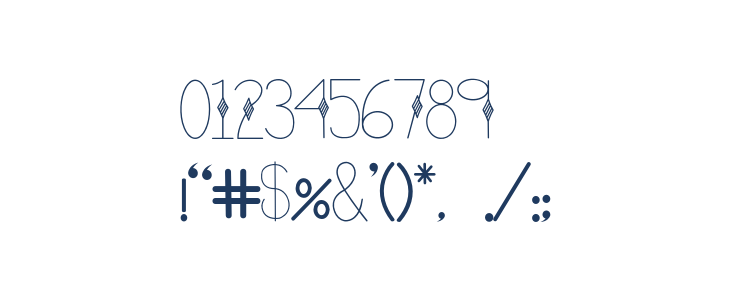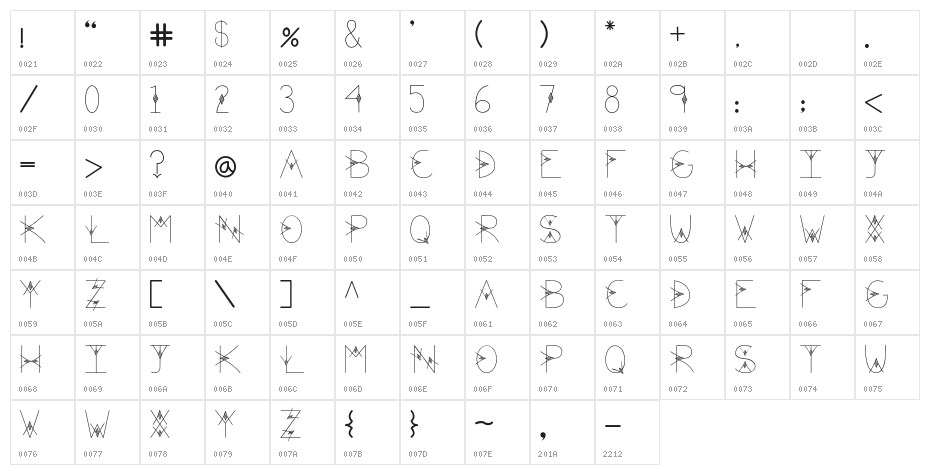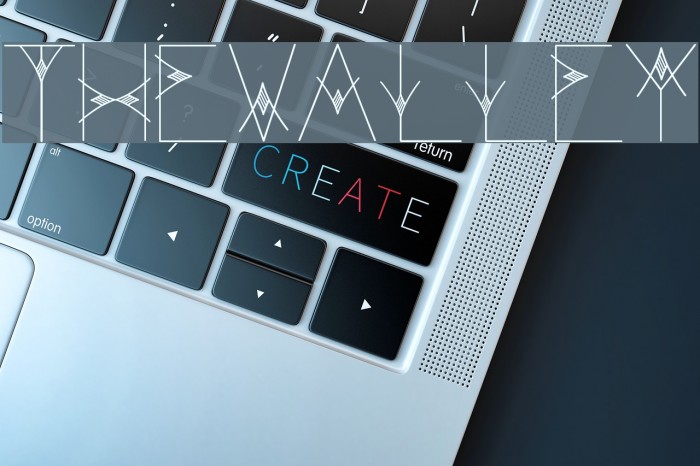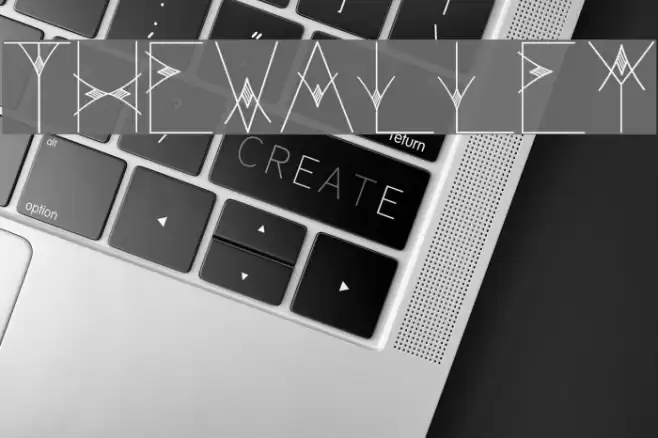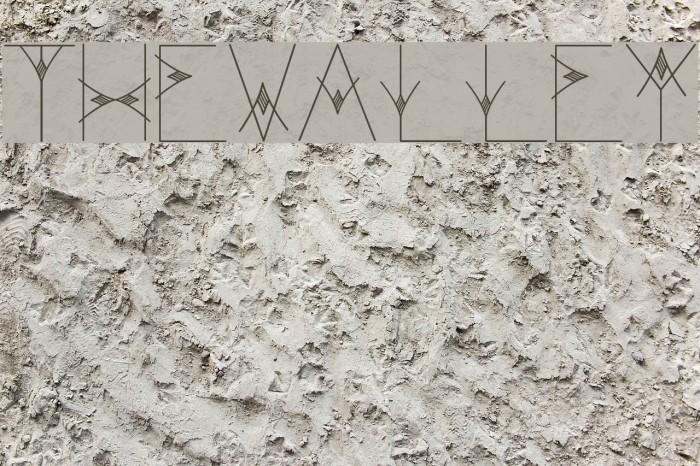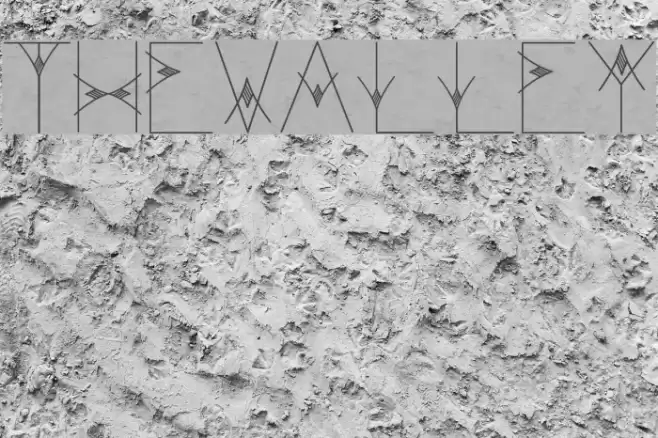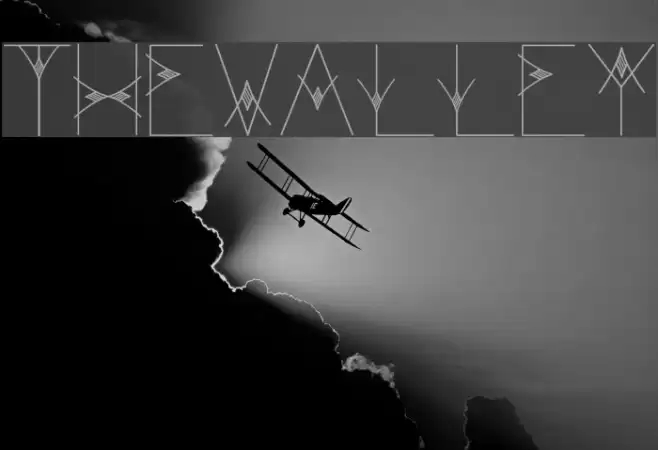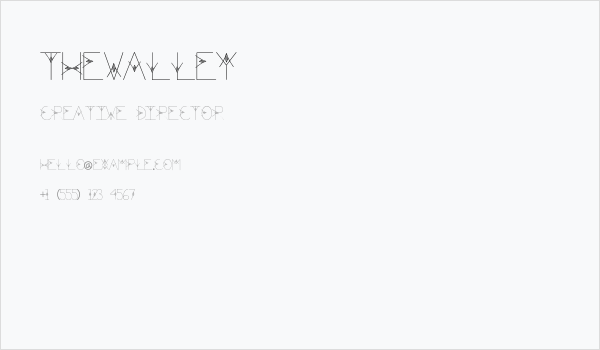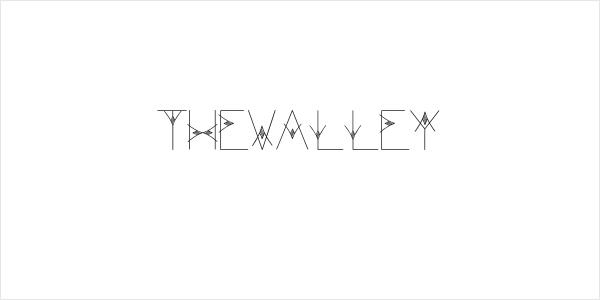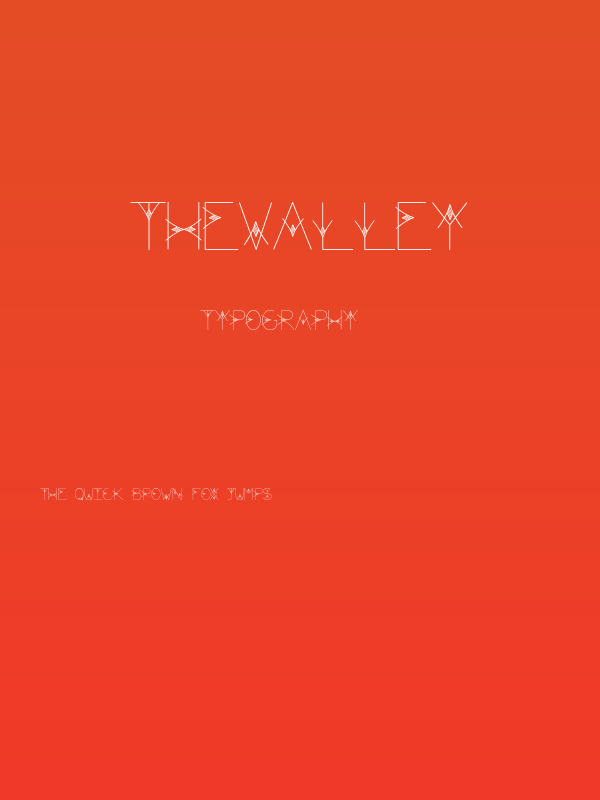
TheValley Font
TheValley Description
This font features a unique and intricate design with geometric elements and angular shapes. Each character is crafted with a combination of straight lines and sharp angles, creating a futuristic and edgy appearance. The uppercase and lowercase letters maintain a consistent style, with some characters incorporating diamond-like shapes within their structure. Numbers and special characters follow the same design principles, ensuring a cohesive look across all glyphs. The font's distinct style makes it stand out, offering a modern and artistic vibe that is both eye-catching and memorable.